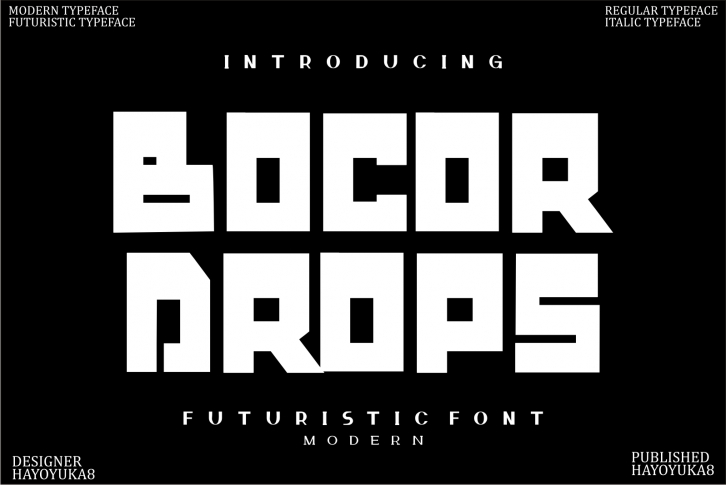
Bocor Drops is an assertive and robotic styled display font. It is ideal for writing web designs, business cards, or pretty much anything else that requires a futuristic touch.